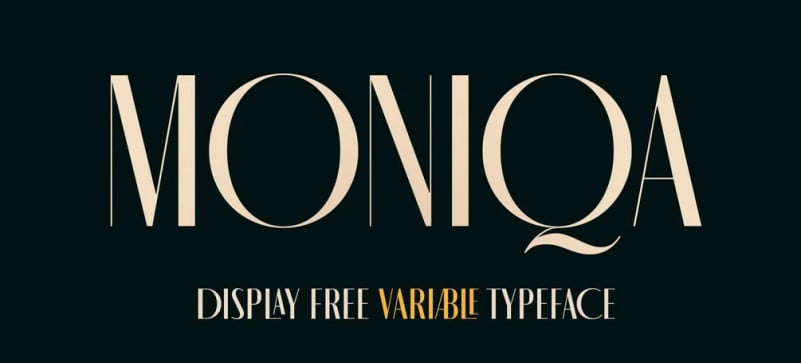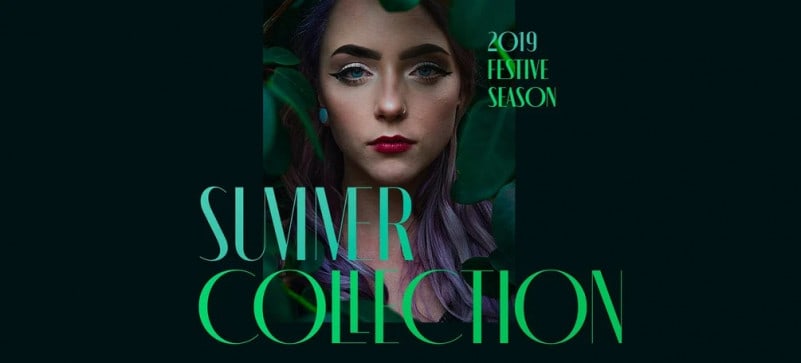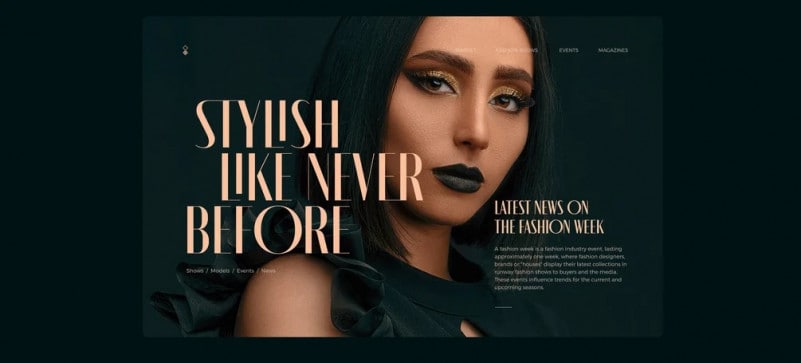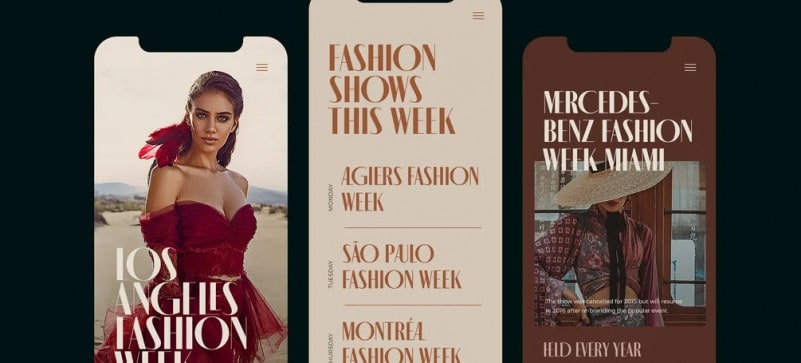
MONIQA Sans Serif Font is variable sans serif font family. It’s designed and shared by Rajesh Rajput. It’s a multilingual typeface which has Latin and Cyrillic scripts, loaded With alternate characters, 162 styles, Discretionary ligatures, and lots Of open type features.